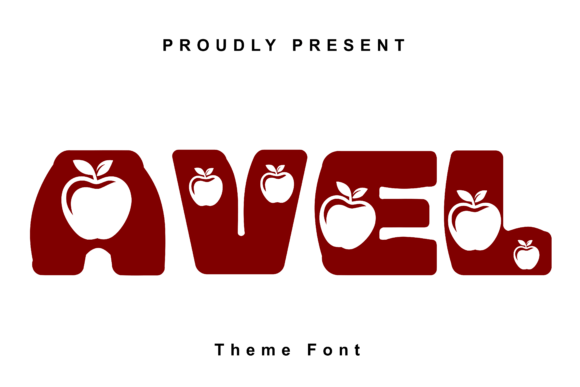
Avel Font: The Ultimate Choice for Standout Designs
In the world of typography, fonts play a crucial role in making or breaking a design. A well-chosen font can elevate a brand’s identity, convey its message, and leave a lasting impression on its audience. One such font that has been making waves in the design community is Avel Font. With its bold characters, prominent apple cutouts, and solid shapes, Avel Font is the perfect choice for creating standout logos, snack packaging, back-to-school graphics, and more.
What is Avel Font?
Avel Font is a unique theme font designed to make a statement. Its bold characters and prominent apple cutouts give it a distinctive look that sets it apart from other fonts. The font’s solid shapes and fun icon elements bring instant appeal, making it perfect for designs that require a playful yet professional touch.
Key Features of Avel Font
- Bold Characters: Avel Font’s bold characters make it perfect for creating eye-catching designs that demand attention.
- Prominent Apple Cutouts: The font’s prominent apple cutouts add a touch of whimsy and fun, making it ideal for designs that require a playful element.
- Solid Shapes: Avel Font’s solid shapes give it a sturdy and dependable look, making it perfect for designs that require a professional touch.
- Fun Icon Elements: The font’s fun icon elements, such as the apple cutouts, add a touch of personality to any design.
Uses of Avel Font
Avel Font is a versatile font that can be used in a variety of designs, including:
- Logo Design: Avel Font’s bold characters and prominent apple cutouts make it perfect for creating standout logos that demand attention.
- Snack Packaging: The font’s fun and playful elements make it ideal for snack packaging designs that require a youthful and energetic touch.
- Back-to-School Graphics: Avel Font’s solid shapes and fun icon elements make it perfect for creating back-to-school graphics that are both fun and professional.
- Advertising: The font’s bold characters and prominent apple cutouts make it perfect for advertising designs that require a bold and attention-grabbing look.
Benefits of Using Avel Font
Using Avel Font in your designs comes with a range of benefits, including:
- Increased Visibility: Avel Font’s bold characters and prominent apple cutouts make it perfect for creating designs that demand attention.
- Improved Brand Identity: The font’s unique look and feel can help to create a strong brand identity that sets your brand apart from others.
- Enhanced Creativity: Avel Font’s fun and playful elements can help to enhance creativity and add a touch of personality to any design.
- Easy to Read: The font’s solid shapes and clear typography make it easy to read, even at small sizes.
Tips for Using Avel Font
Here are some tips for using Avel Font in your designs:
- Use it Boldly: Avel Font is designed to be used boldly, so don’t be afraid to experiment with different sizes and colors.
- Mix and Match: The font’s fun and playful elements can be mixed and matched with other fonts and design elements to create a unique look.
- Keep it Simple: While Avel Font is a bold and attention-grabbing font, it’s best to keep your design simple and clean to avoid overwhelming the audience.
- Experiment with Colors: The font’s solid shapes and fun icon elements can be used with a range of colors to create a unique and eye-catching design.
In conclusion, Avel Font is a unique and versatile font that is perfect for creating standout designs. Its bold characters, prominent apple cutouts, and solid shapes make it ideal for a range of designs, from logos and snack packaging to back-to-school graphics and advertising. With its easy-to-read typography and fun icon elements, Avel Font is a great choice for designers looking to add a touch of personality to their designs.